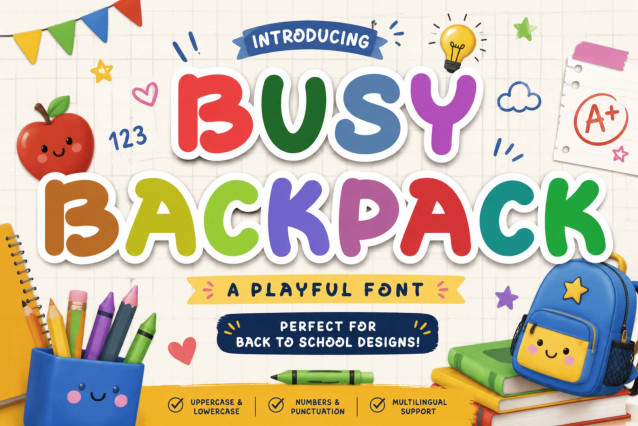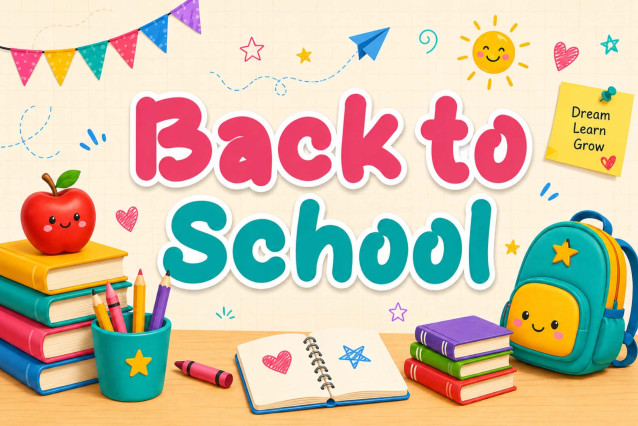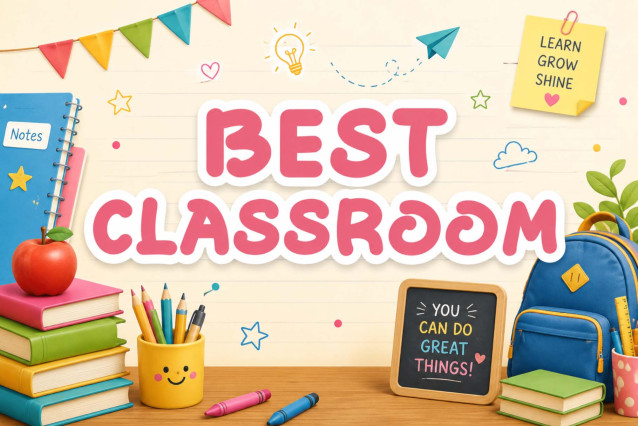
Busy Backpack Font
Busy Backpack is a cheerful and playful display font designed to bring fun and creativity to any project. Its bold, rounded letters are perfect for back-to-school themes, classroom decor, children’s crafts, and educational designs. It features uppercase and lowercase letters, numbers, punctuation, and multilingual support.